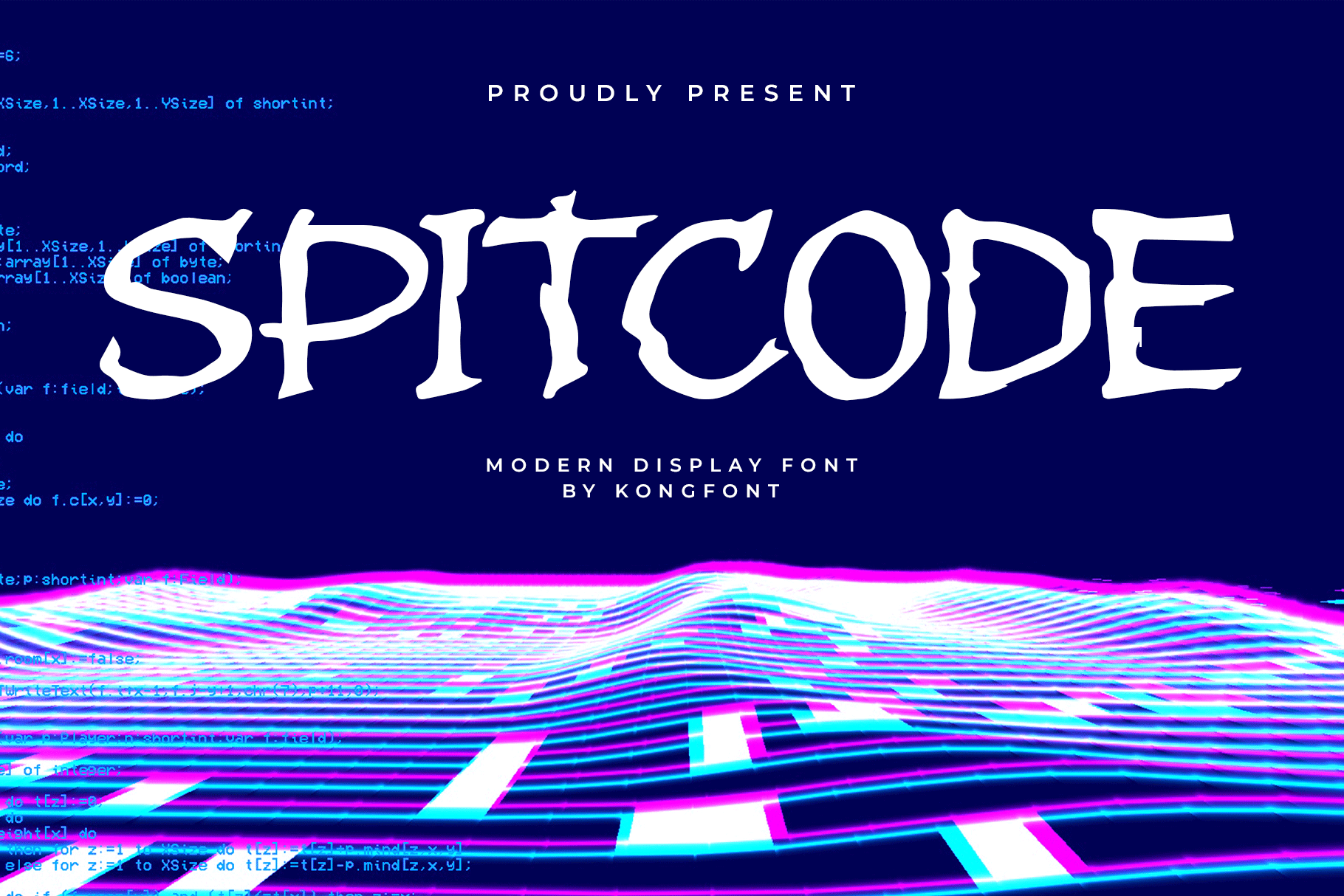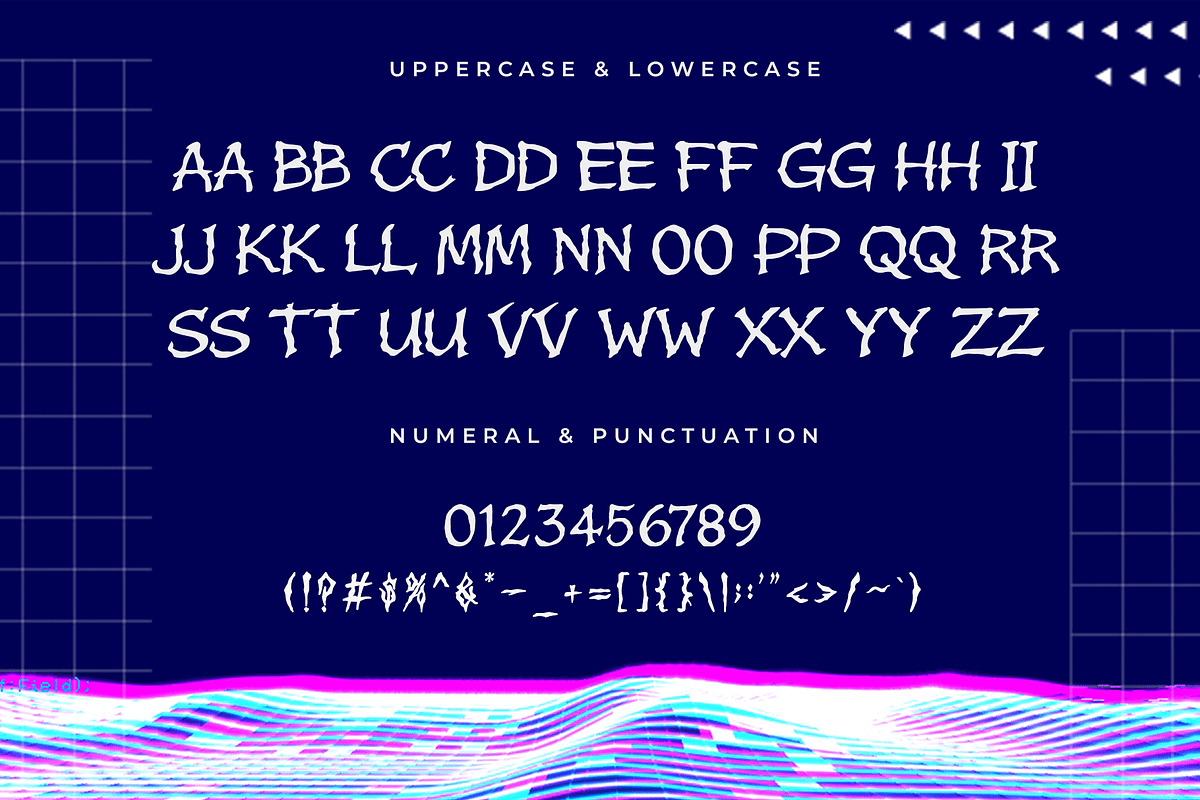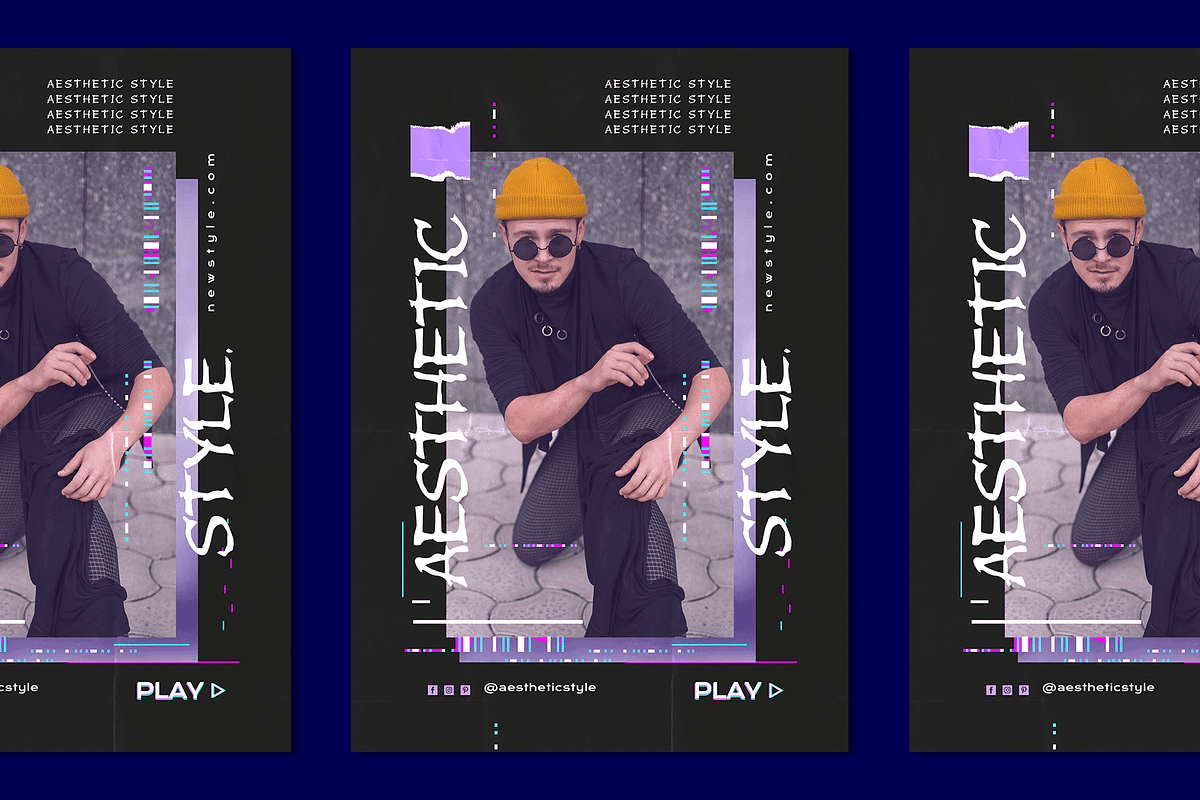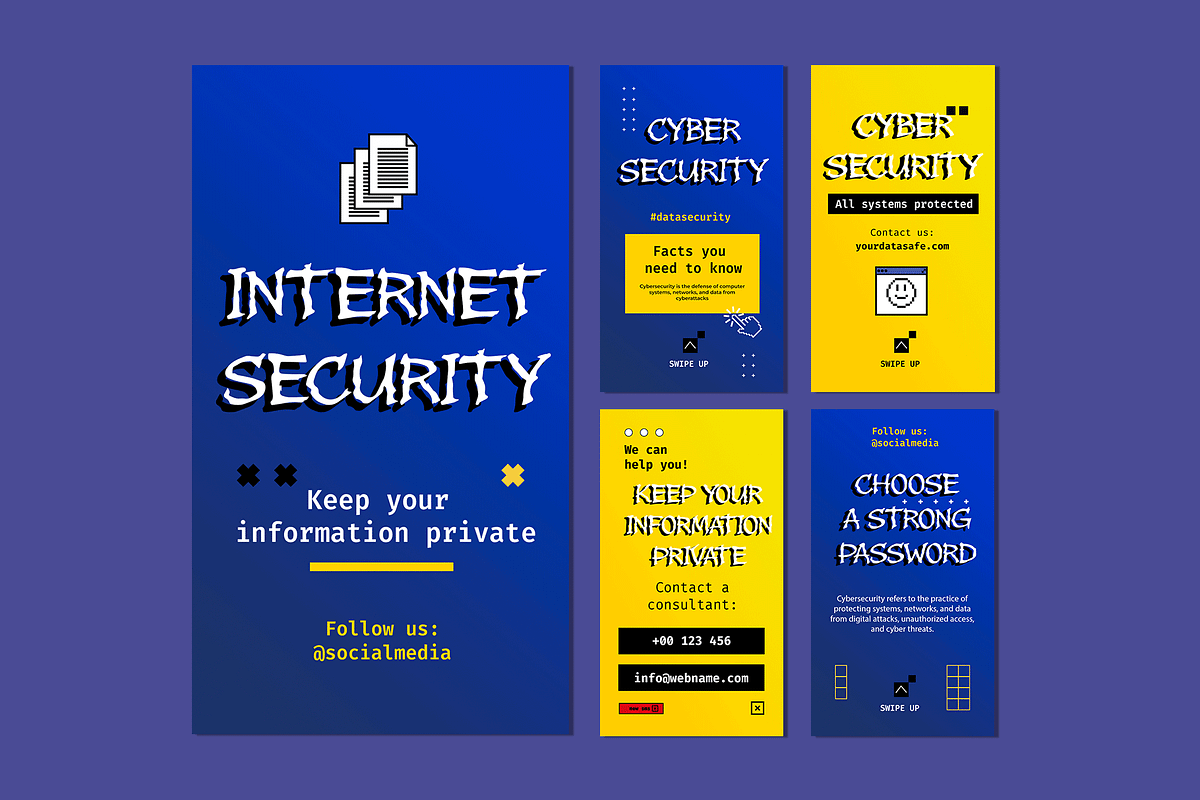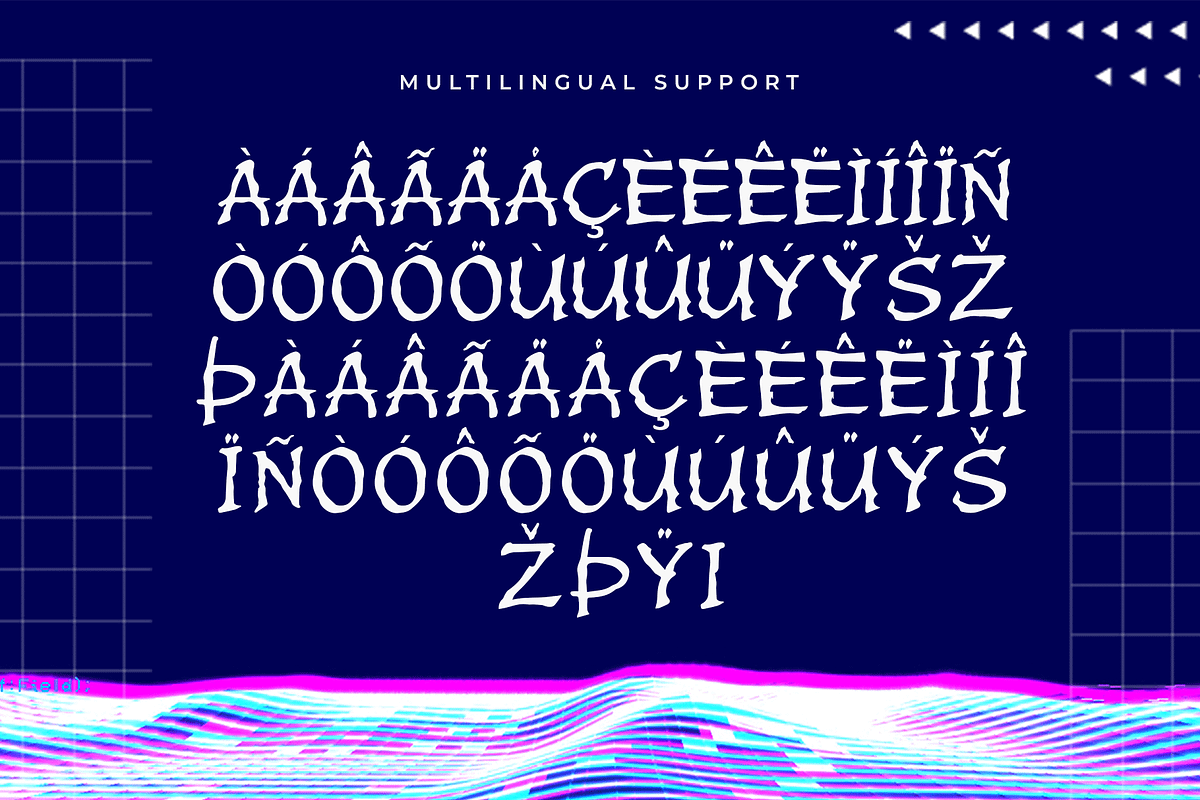
Spitcode – Modern Display Font
Spitcode is a modern display font built with a bold, edgy digital aesthetic. With sharp angles, condensed spacing, and tech-inspired letterforms, this typeface delivers attitude and clarity perfect for high-impact visuals that demand attention.
Designed for use in tech branding, gaming interfaces, hacker-themed visuals, posters, music artwork, and digital campaigns, Spitcode brings a punch of underground energy to any project. Its futuristic vibe is fused with an urban edge, making it ideal for rebellious, cutting-edge designs.
This font includes uppercase and lowercase characters, numerals, punctuation, and multilingual support ready to encode your boldest ideas with style.
Crack the code of bold design with Spitcode where digital grit meets typographic power.